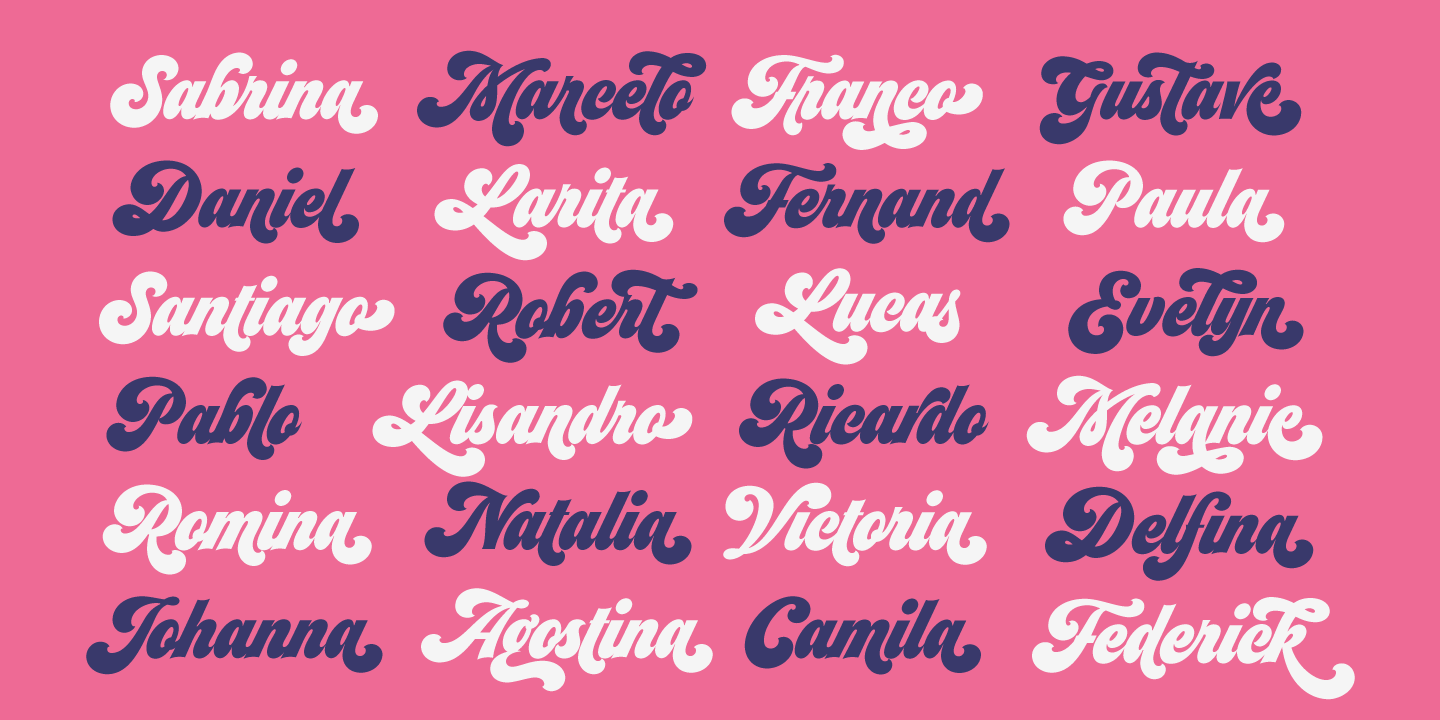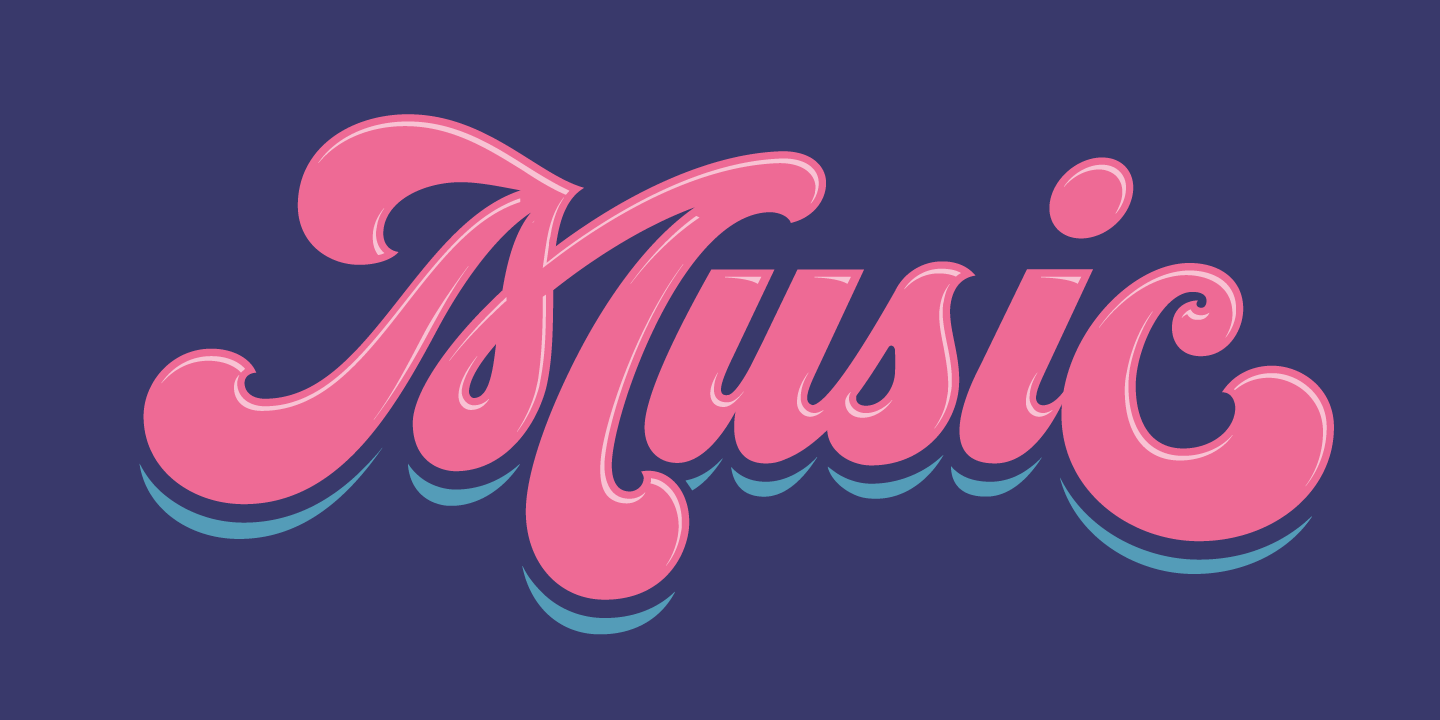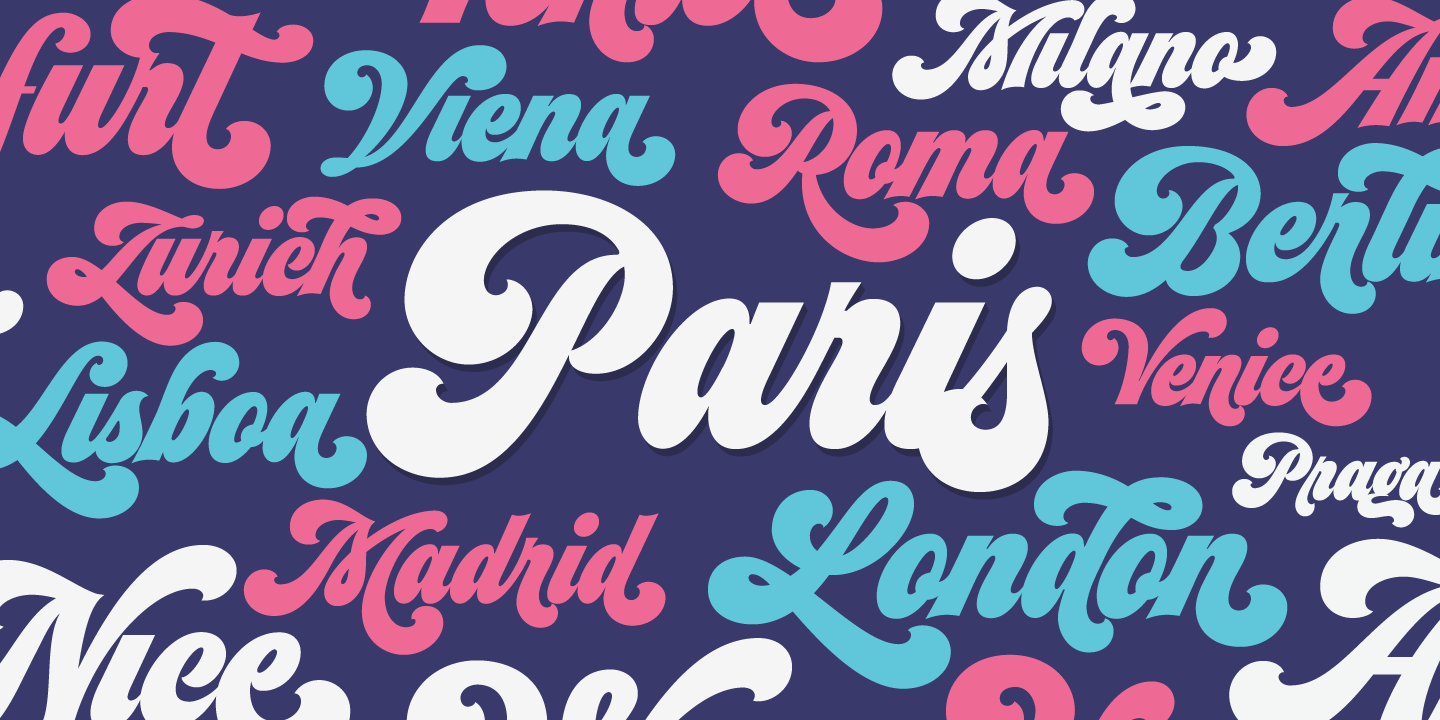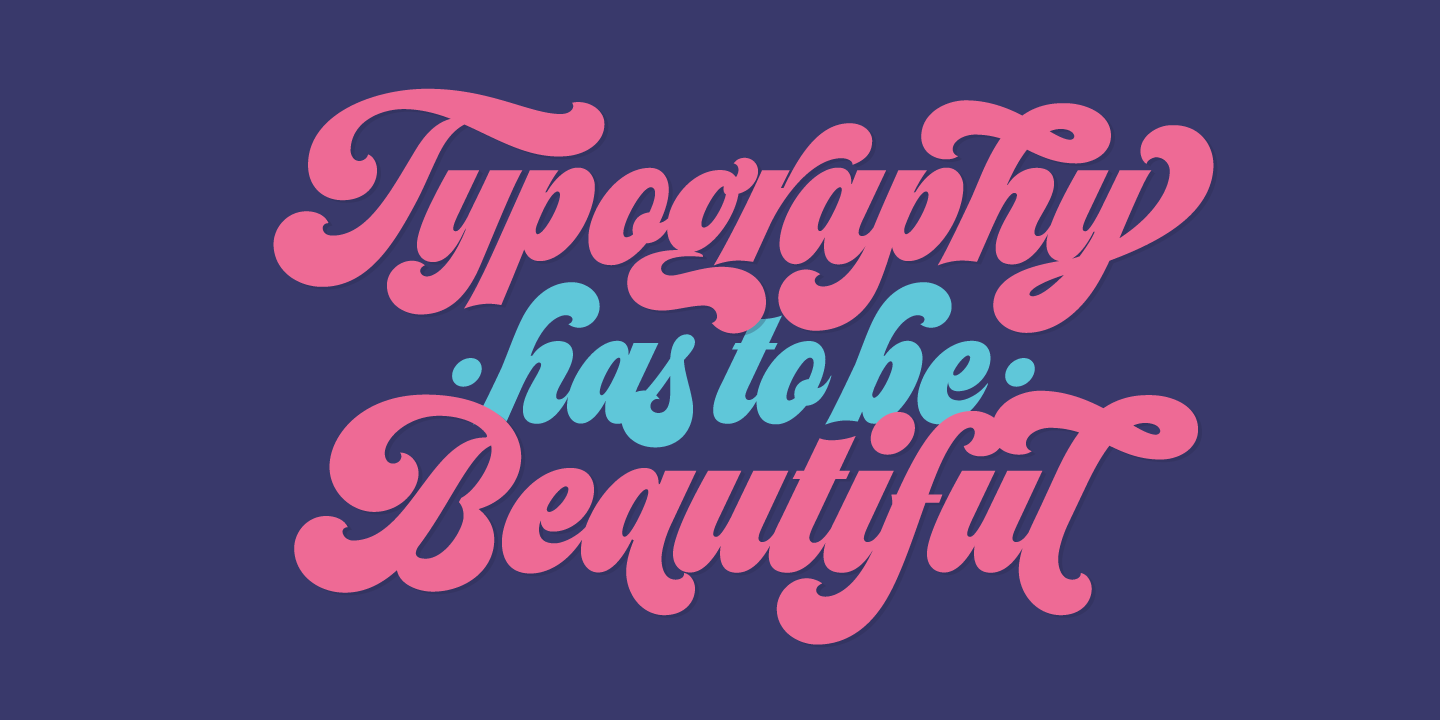
About Seventies
Meeeeoooow! Seventies is another of my funkadelic attemps (1) to fill the existing gap of seventish looking fonts. In my opinion, that decade has a hidden treasure regarding type that remains unexplored: Only very few fonts rescue its groovy essence,…